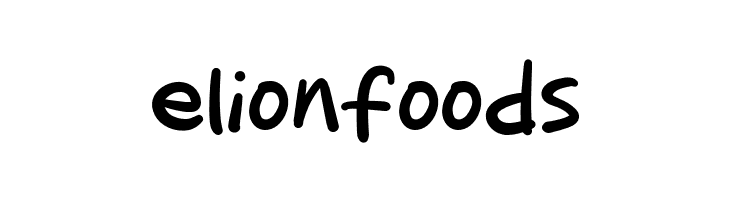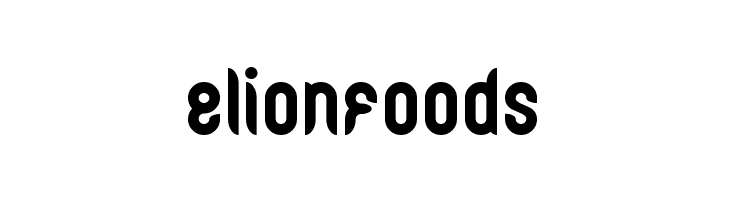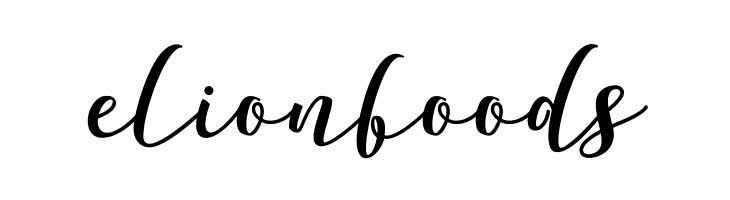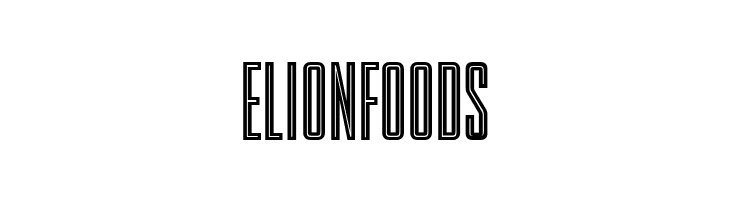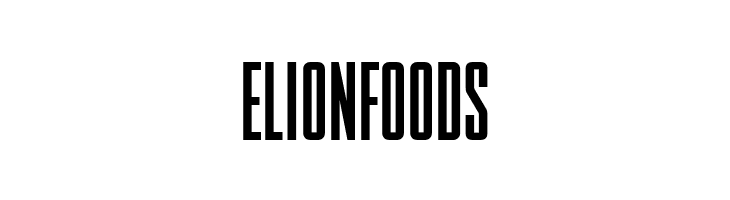
• Dean Martin Swing
A whimsical and decorative font with playful curls and swirls.
• Dear Theo
Expressive handwritten style with fluid, dynamic strokes.
• Dear Theo 2
Expressive handwritten font with fluid, cursive strokes.
• Deathay Light
A sleek, modern font with thin, elongated letterforms and minimal contrast.
• December Show
A playful, handwritten font with smooth, rounded edges and a casual style.
• Decipher
A bold, modern font with a geometric and futuristic style.
• Declara
A dynamic and elegant script font with fluid, cursive strokes.
• Deka Regular
• Delfoo
A flowing, elegant script font with smooth, connected strokes.
• DELIRIUM NCV
A bold, modern font with tall, narrow characters and a strong visual impact.
• DELIRIUM NEON NCV
A bold, geometric outline font with a modern, neon-like appearance.
• Demon Sker
A distressed, grunge-style font with rough edges and a textured appearance.
• Denne Shuffle Euro Hollow
A playful, hand-drawn font with hollow, textured characters.
• Der Wurst Font
• Dev Gothic
• Dhe Cruncy
A bold, geometric font with a blocky and modern design.
• Dhe long zim
• dhe wood
A bold, hand-drawn font with a playful and rustic style.
• Dick Lucas
• Digital Therapy - DEMO
A bold, geometric font with a futuristic and digital aesthetic.
• Dinghy
A bold, playful font with rounded edges and a retro vibe.
• dionisia-Regular
A bold, geometric font with a modernist design and strong emphasis on lines.
• dipdop
A modern, geometric font with a futuristic and sleek design.